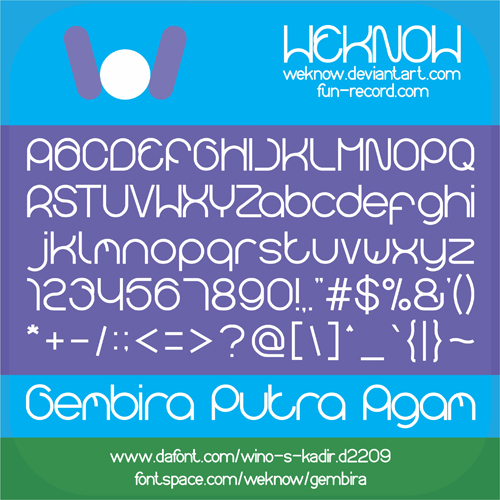
weknow Font \o/ font
Gembira is a word from Indonesian language, its mean : happiness
so this is happiness font i guess,
and i dedicated this font for my friend named Gembi, with his full and longest name Gembira putra agam
he is one of the Best Indonesian Journalist for music, culture, entertainment, and lifestyle.
he is also a multi talent person, having a freestyle jazz band called sungsang lebam telak, and many digital music project, such the amazing you, pemuda elektrik